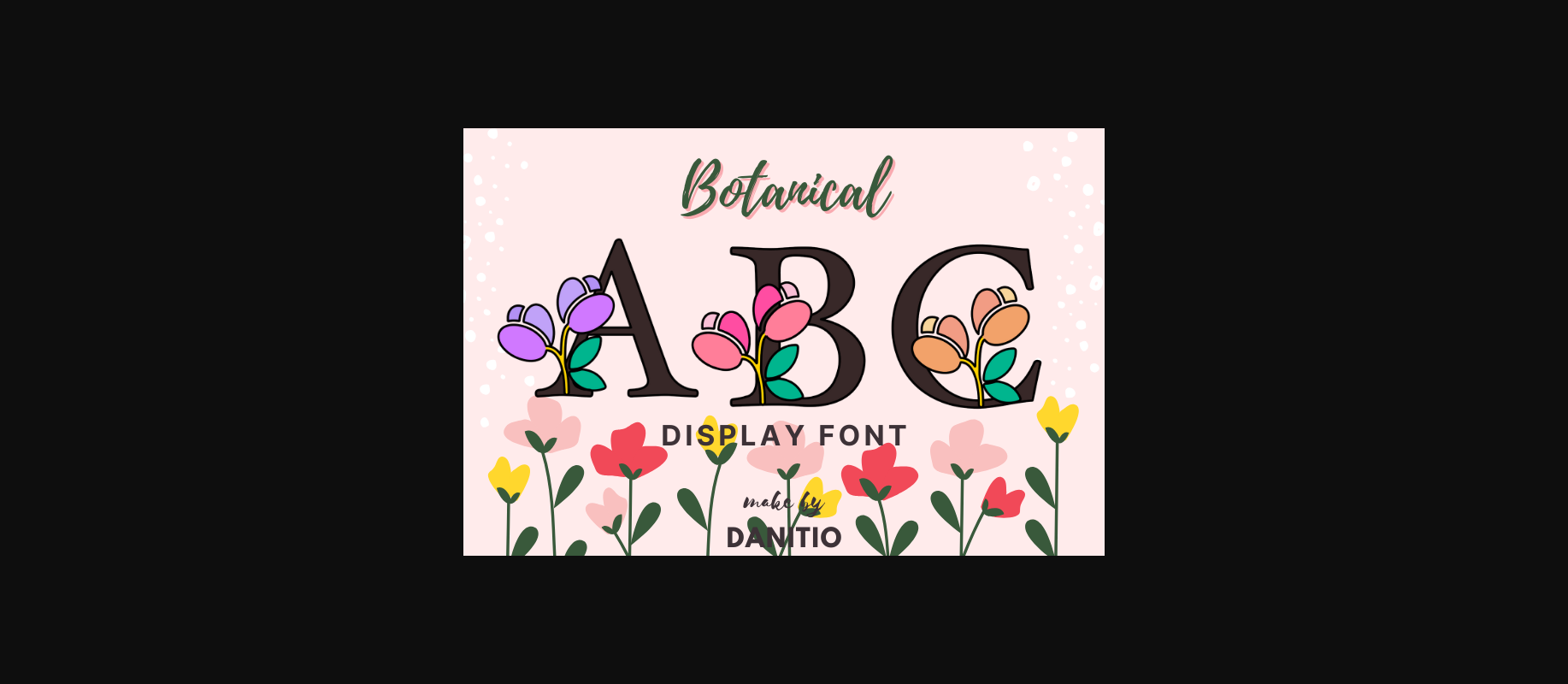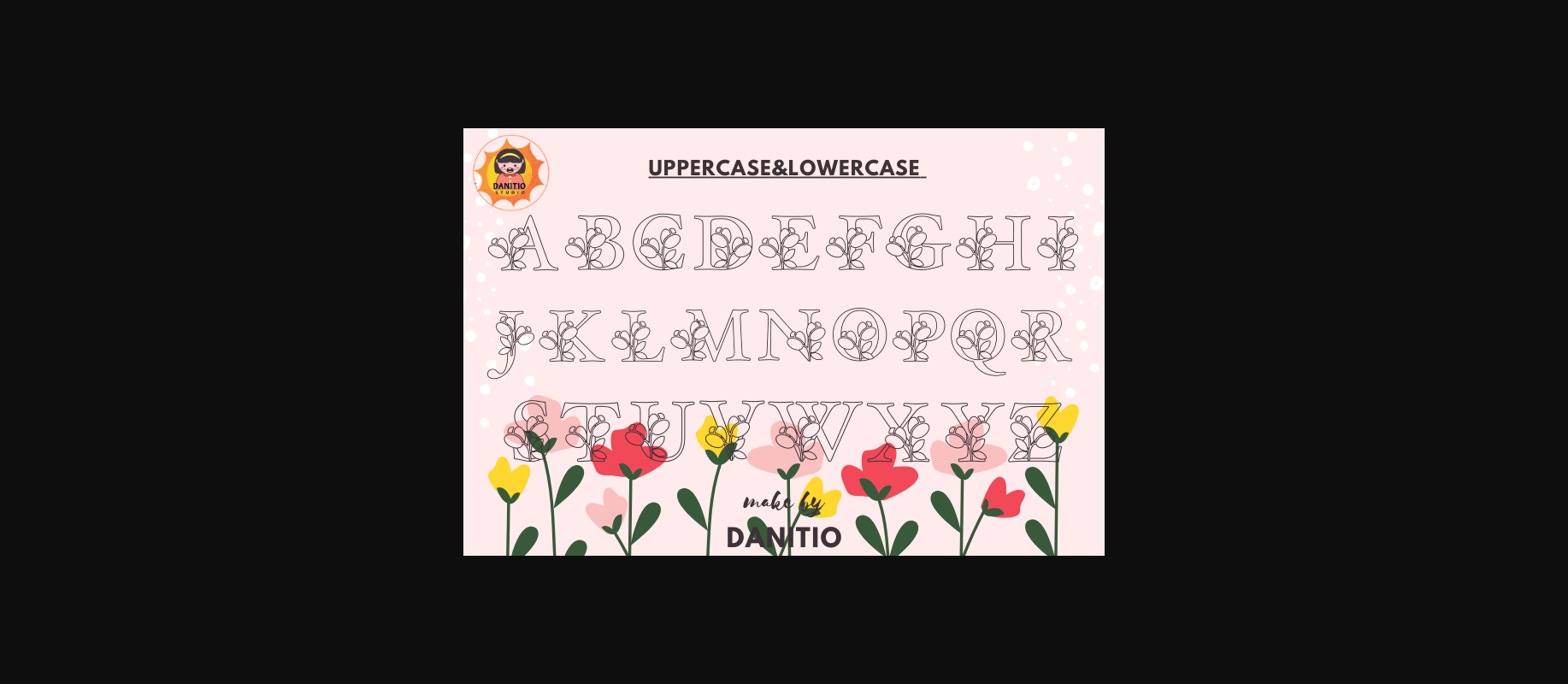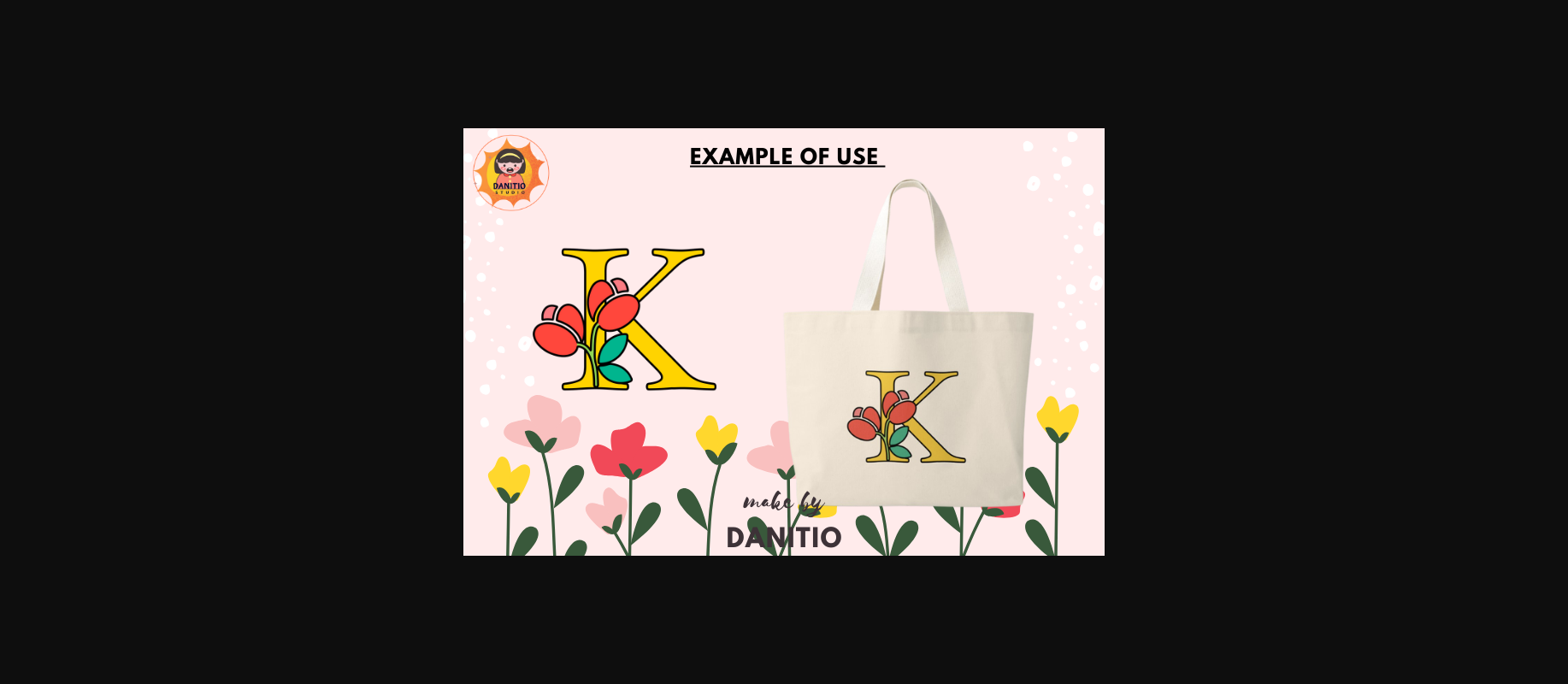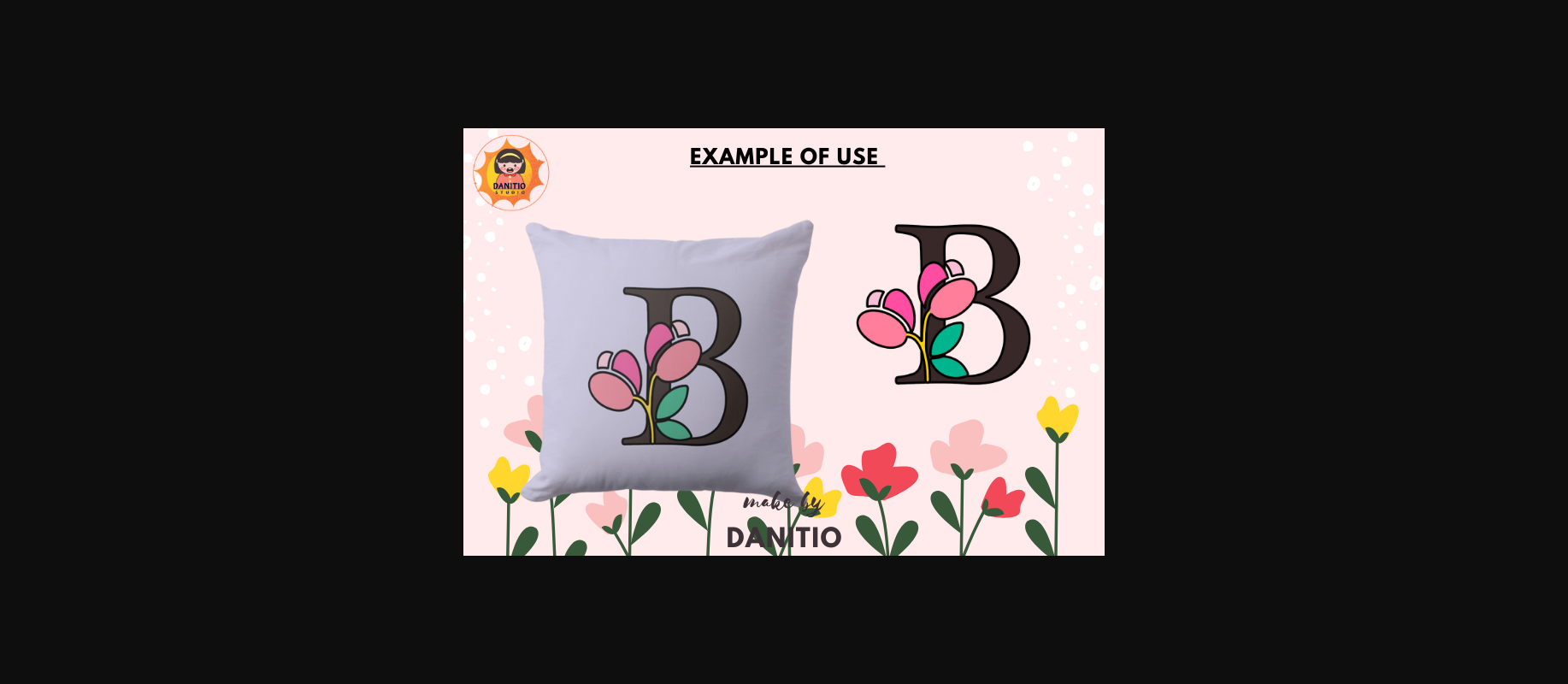
Botanical Font
About Botanical Font
Botanical is a fun and cute decorative font. Perfect for your favorite projects like posters, flyers, and social media. Movie and book titles, invitations, t-shirt stickers, logos, advertisements, clothing, and many other things or products that you think are appropriate. Hope you enjoy my fonts.